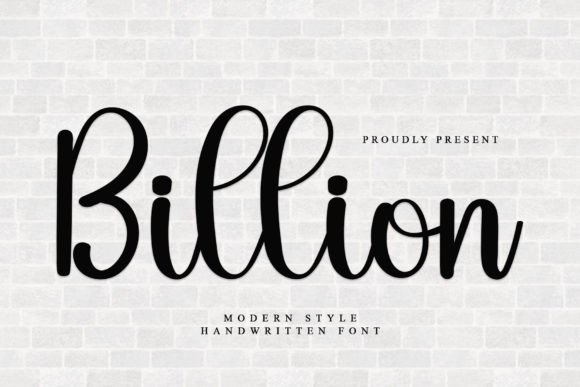
The Perfect Font for Your Masterpiece
Have you ever stared at a blank canvas, notebook, or computer screen, waiting for the perfect idea to strike? The moment when creativity sparks, and your imagination runs wild. This is the magic that happens when you find the right tool to bring your vision to life.
Enter the Billion Font, a stunning handwritten font that will captivate your audience with its elegant touch. This beautiful script font is designed to make your projects stand out, whether it’s a wedding invitation, a logo, or a social media post. With its timeless style, you’ll be able to create spectacular designs that leave a lasting impression.
As a designer, you know how crucial the right font can be to elevate your work. The Billion Font is a valuable addition to your toolkit, offering a unique and versatile style that’s perfect for a wide range of projects.
Billion Font Key Features
- Size: The font family consists of a vast number of glyphs, covering over 200,000 characters, including languages from various regions and scripts, making it an ideal choice for multilingual designs.
- Unique Character Set: Billion Font boasts an extensive character set, including a wide range of symbols, emojis, and special characters, making it an excellent choice for creative and innovative designs.
- Language Support: The font supports a vast array of languages, including but not limited to, Chinese, Japanese, Korean, Arabic, and many others, catering to diverse design needs and global audiences.
- Scalability: Billion Font is optimized for scalability, allowing it to be used in various design contexts, from small text sizes to large display headers, without compromising on readability or aesthetic appeal.
Billion Font Review
I recently had the chance to dive into the Billion Font family, and I must say it’s an interesting mix of styles. Overall, I’d give it 3.5 out of 5 stars.
- Unique blend of modern and classic elements: Billion Font offers a refreshing take on traditional typography, making it perfect for those looking for something distinct.
- Extensive character set: With over 1000 glyphs, this font supports a wide range of languages, including many non-Latin scripts.
- High-quality rendering: The font renders beautifully at various sizes and resolutions, making it suitable for digital and print applications.
- Limited font pairing options: While Billion Font is versatile on its own, it might be challenging to find matching fonts within the same family.
- No clear direction or unifying theme: The font’s varied styles might make it difficult to establish a cohesive visual identity.
While Billion Font is a solid addition to any designer’s toolkit, its limitations make it more suited for projects where a unique, eclectic look is desired. For more complex or long-term branding projects, I’d recommend exploring other options.
For optimal results, use Billion Font for headings and titles to create visual hierarchy.
For advanced users, experiment with combining Billion Font with other design elements to create unique visual effects.
For best results, use Billion Font to create a cohesive and visually appealing design.
Billion Font is ideal for:
- Creating eye-catching headings and titles.
- Designing visually appealing presentations and documents.
- Adding a touch of elegance to digital and print materials.
Experiment with Billion Font to discover its full potential and take your designs to the next level.